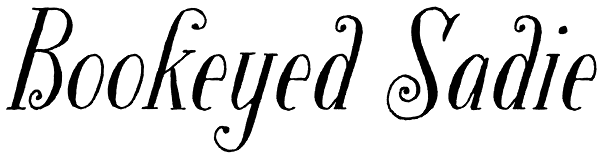
Bookeyed Sadie
Bookeyed Sadie has a big voice and powerful curves calling attention. She’s an Open Type font filled with a beautiful ligatures, contextual & stylish alternates. With a healthy collection of glyphs (including alternate caps, roman numerals, 2 sets...
Bookeyed Sadie
Bookeyed Sadie Ampersands